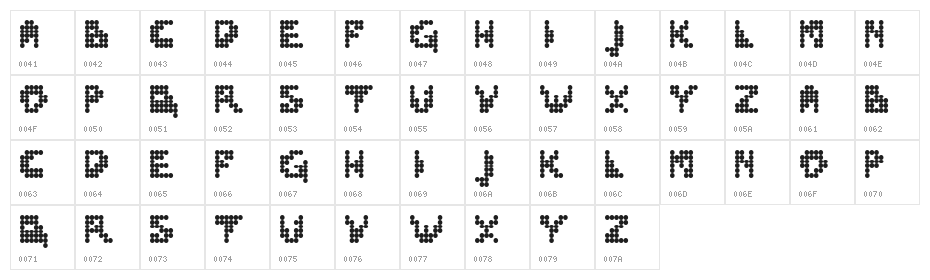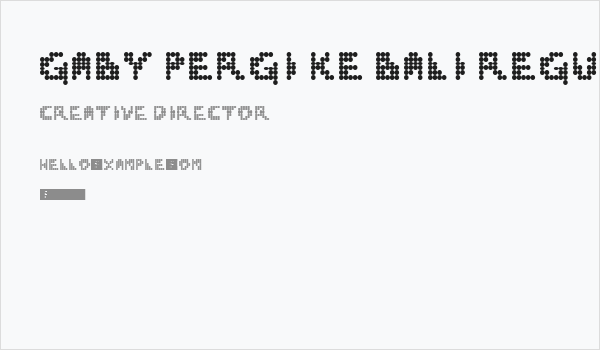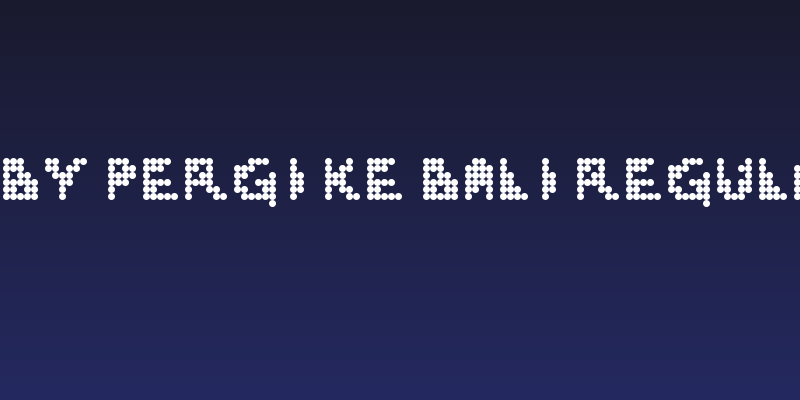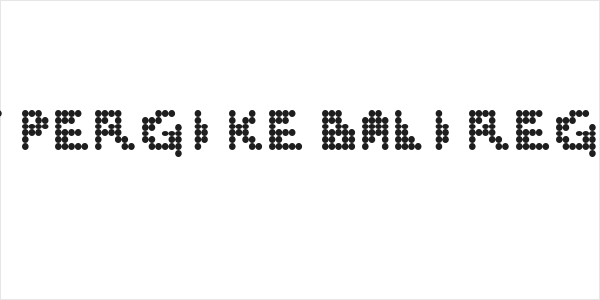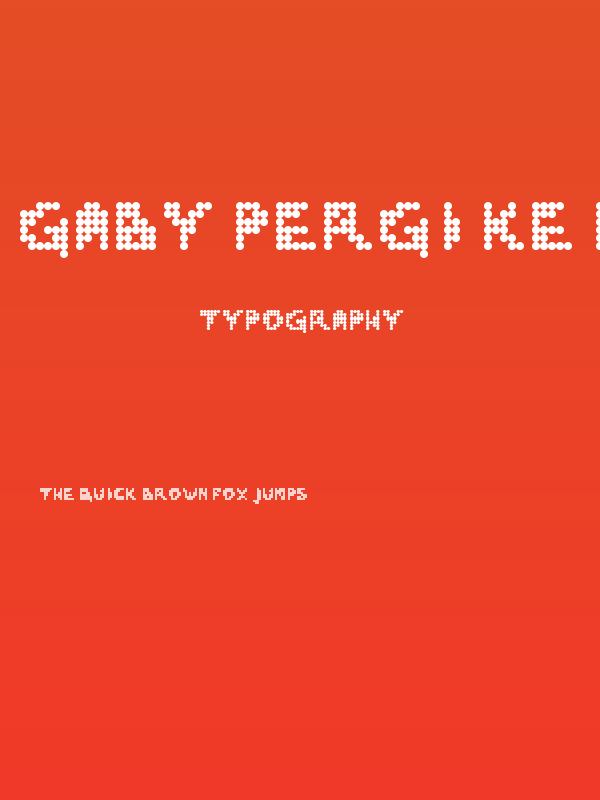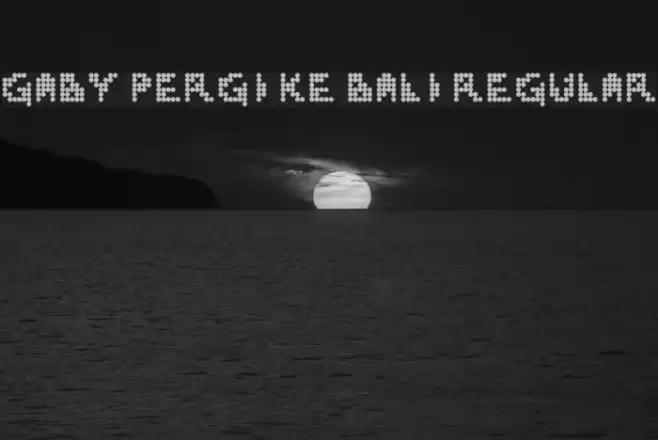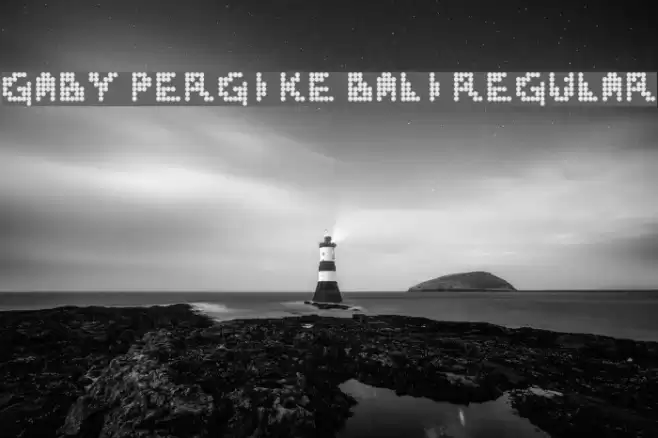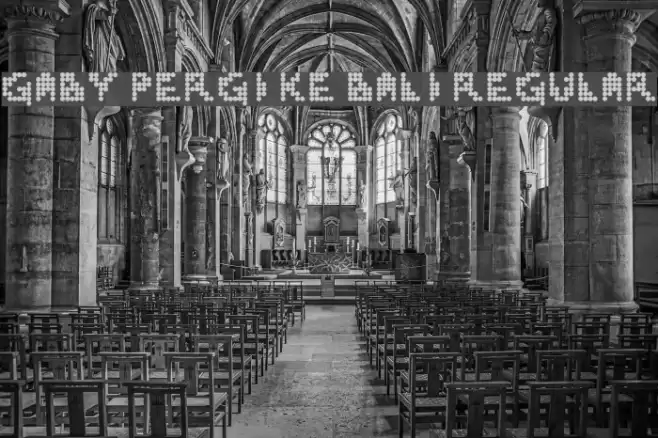
Gaby Pergi Ke Bali Regular Font
Gaby Pergi Ke Bali Regular Description
This font features a unique design composed entirely of small, evenly spaced dots forming each character. The geometric structure gives it a modern and digital feel, reminiscent of LED displays or dot matrix printers. Each letter is clearly defined, maintaining legibility despite the unconventional style. The uniformity of the dots creates a cohesive look across all characters, while the spacing between the dots ensures clarity. This font stands out due to its distinct appearance, making it suitable for creative and tech-oriented projects.
| Proposed Projects | Ideal for digital displays, tech-themed designs, creative posters, and futuristic branding. |